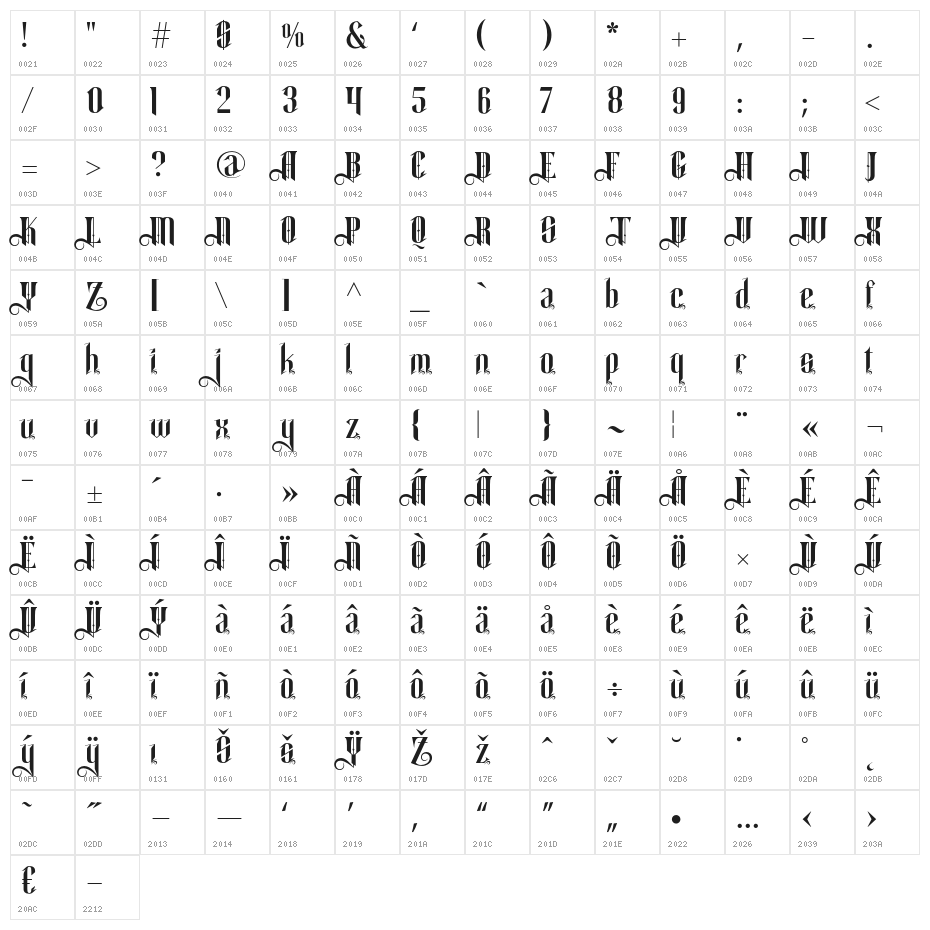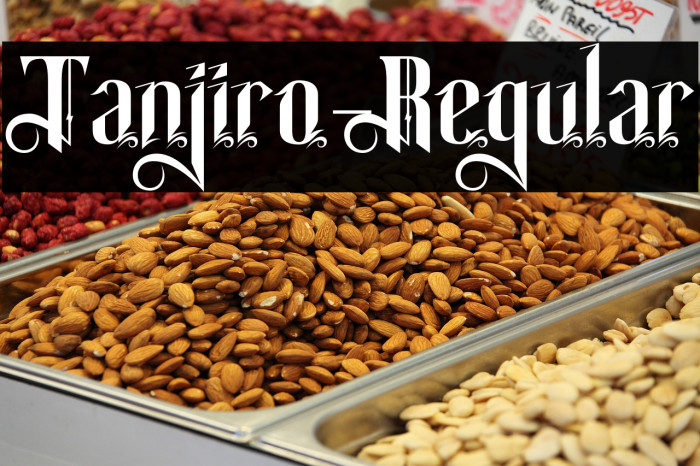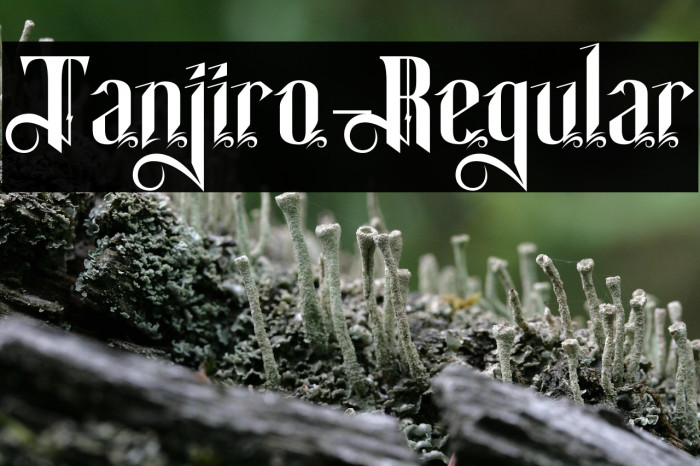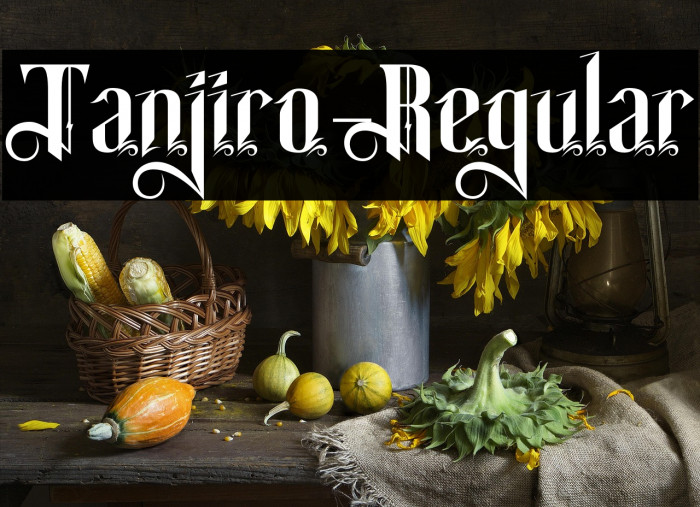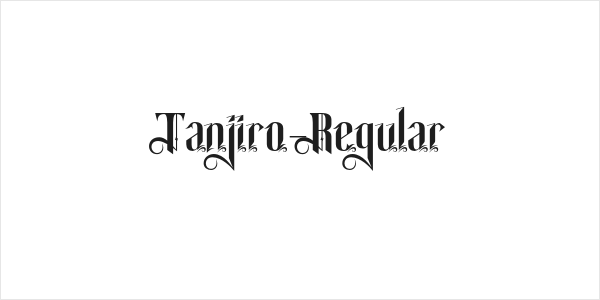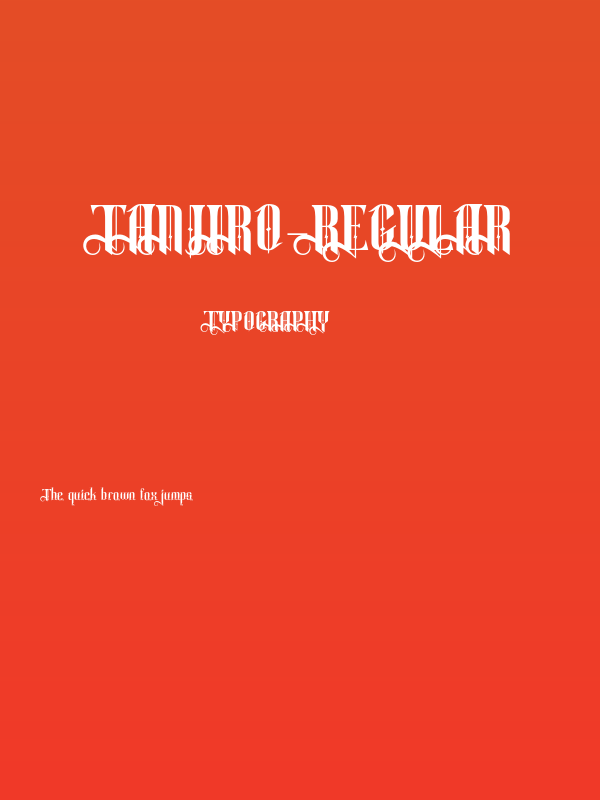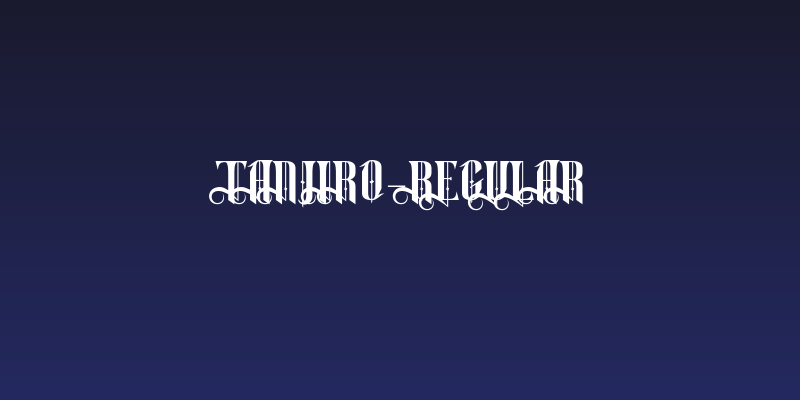
Tanjiro-Regular Font
Tanjiro-Regular Description
This font features a bold and intricate design, reminiscent of traditional Blackletter styles. The characters are adorned with elaborate flourishes and sharp, angular lines, giving it a dramatic and ornate appearance. The uppercase letters are particularly striking, with their tall, narrow forms and decorative elements that extend beyond the baseline. The lowercase letters maintain the same level of detail, ensuring consistency throughout the typeface. Numbers and special characters are equally stylized, making this font suitable for projects that require a strong visual impact.
| Use Case | Logos, Headlines, Posters |
| Proposed Projects | Ideal for tattoo designs, gothic-themed posters, album covers, and branding that requires a dramatic flair. |